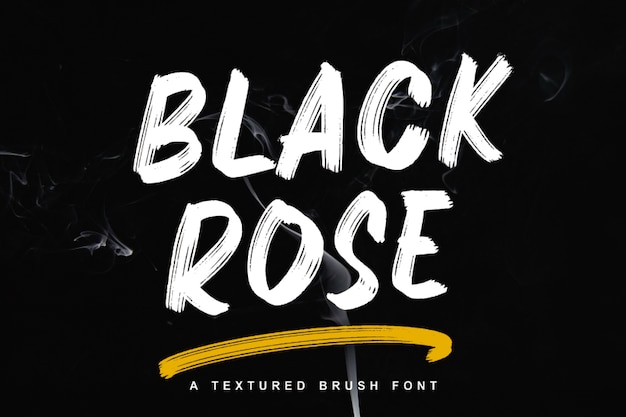
Blackrose is a textured brush font that will make your creations special! Make use of this font to create invitation cards, posters and much more!
Blackrose (400)